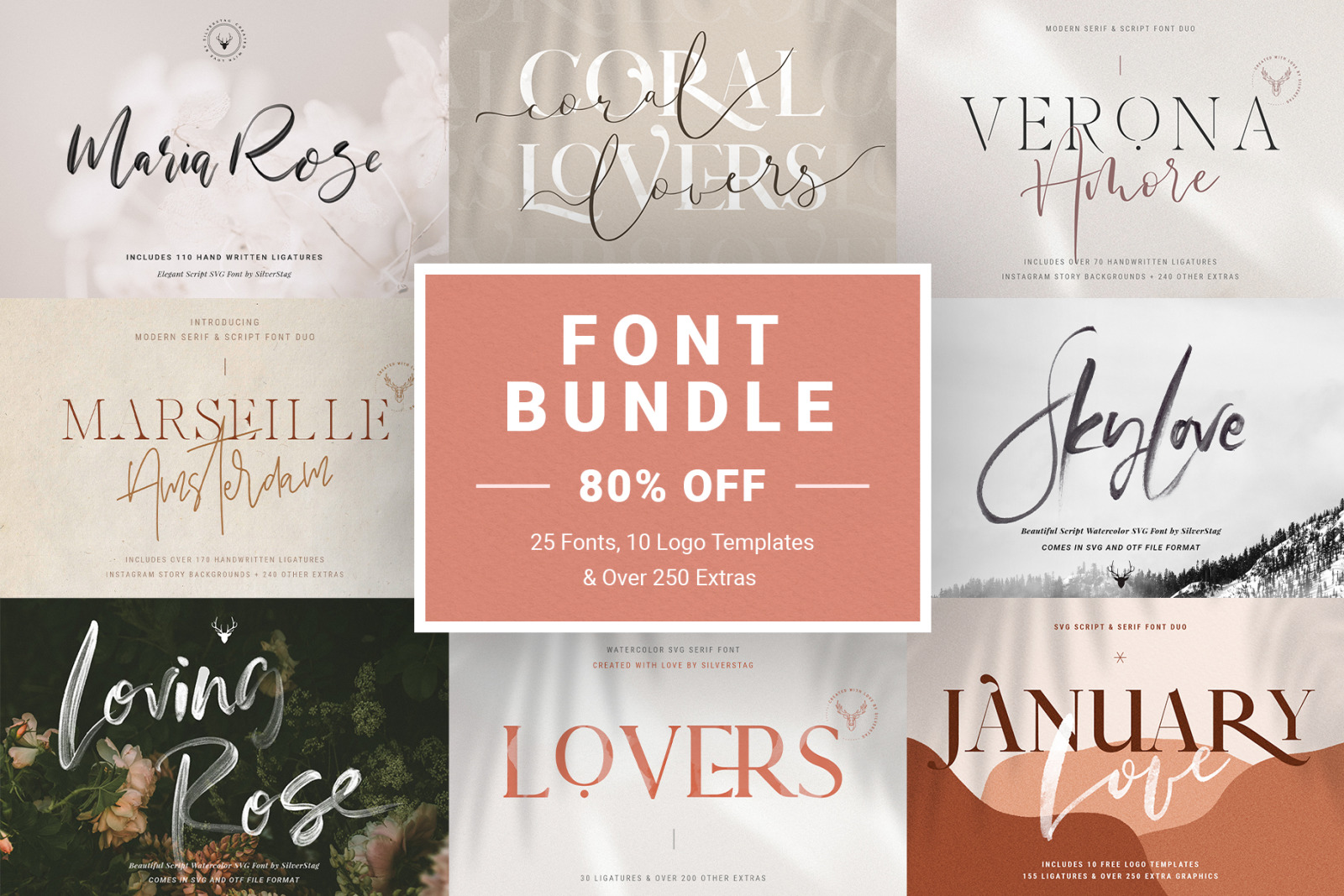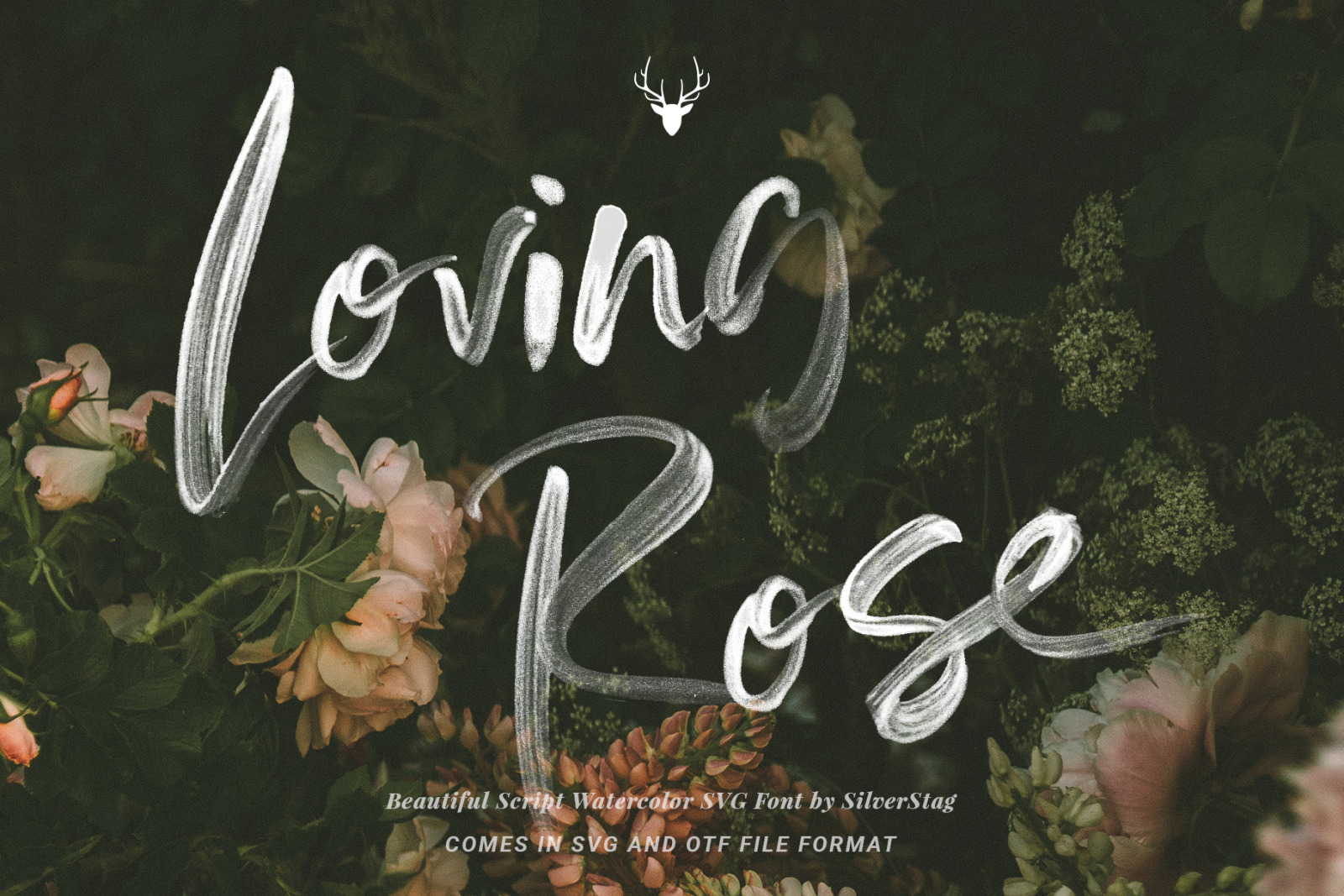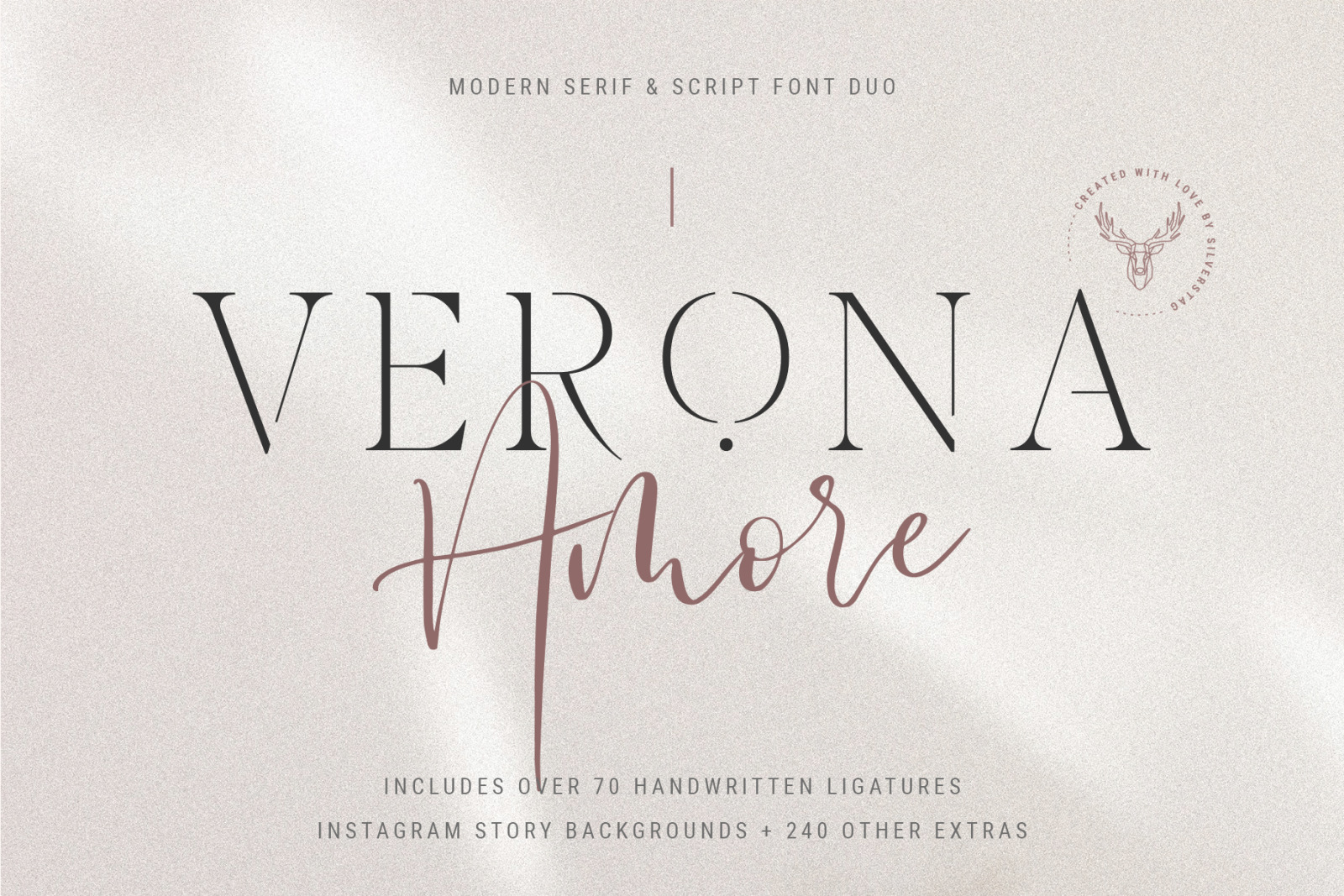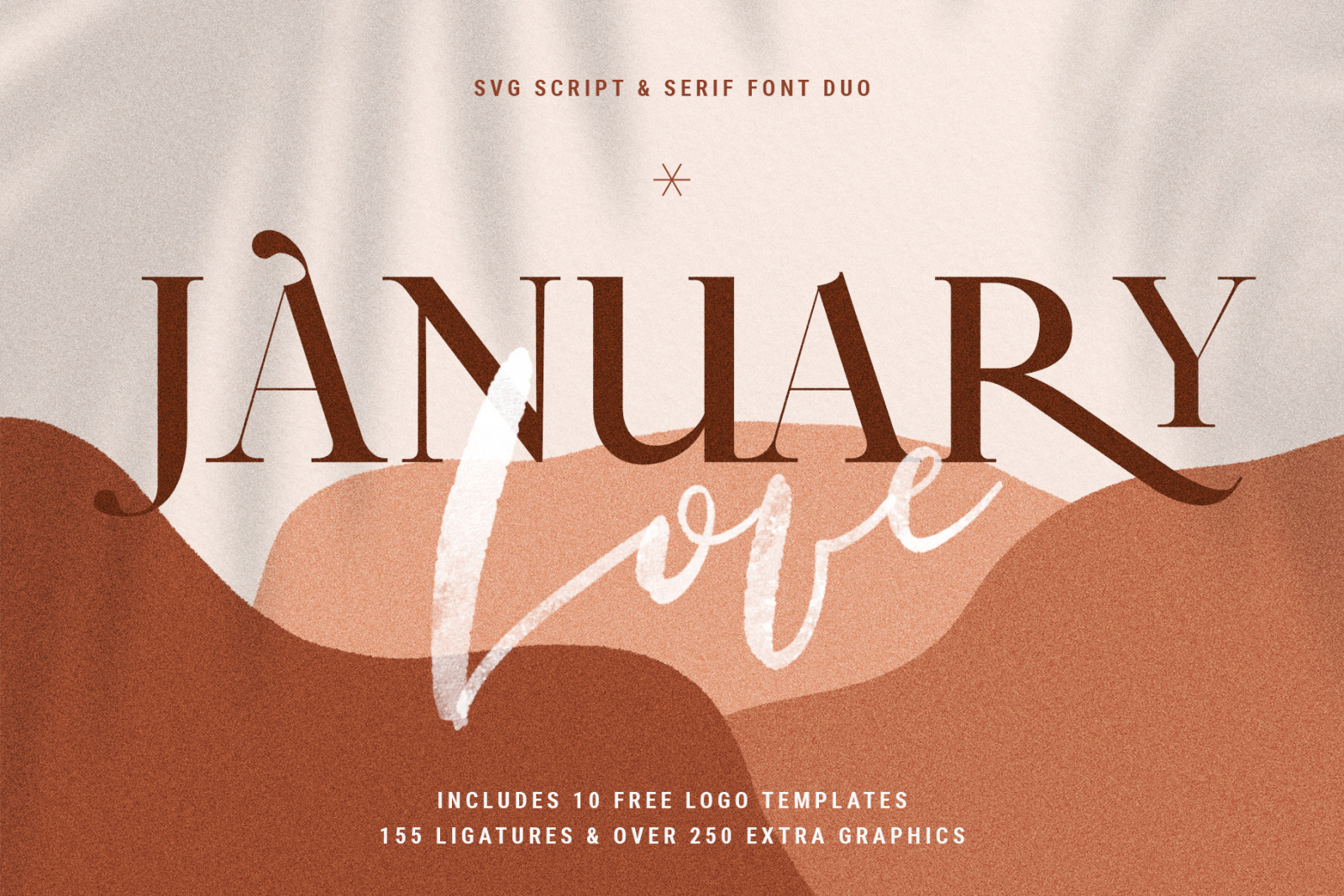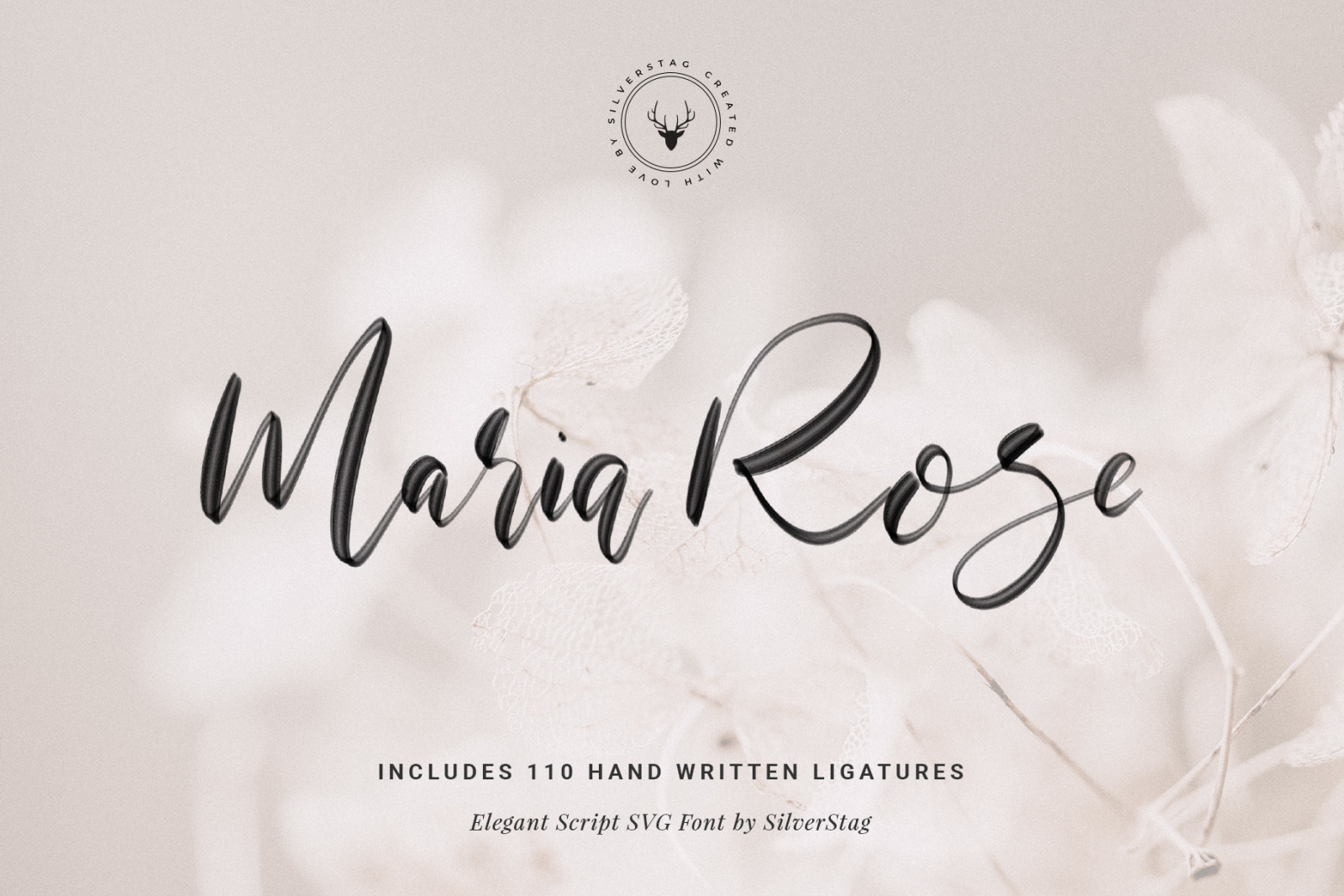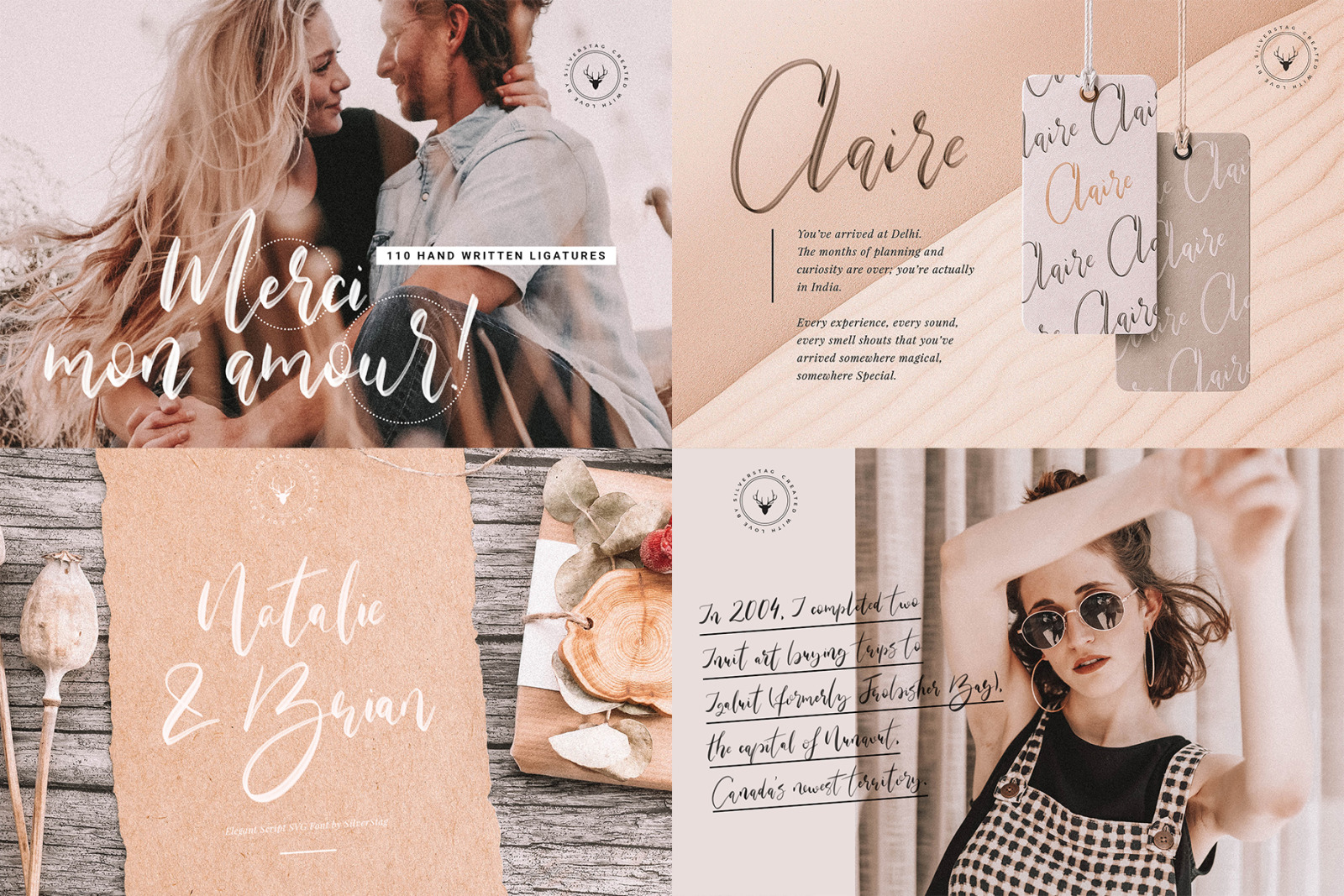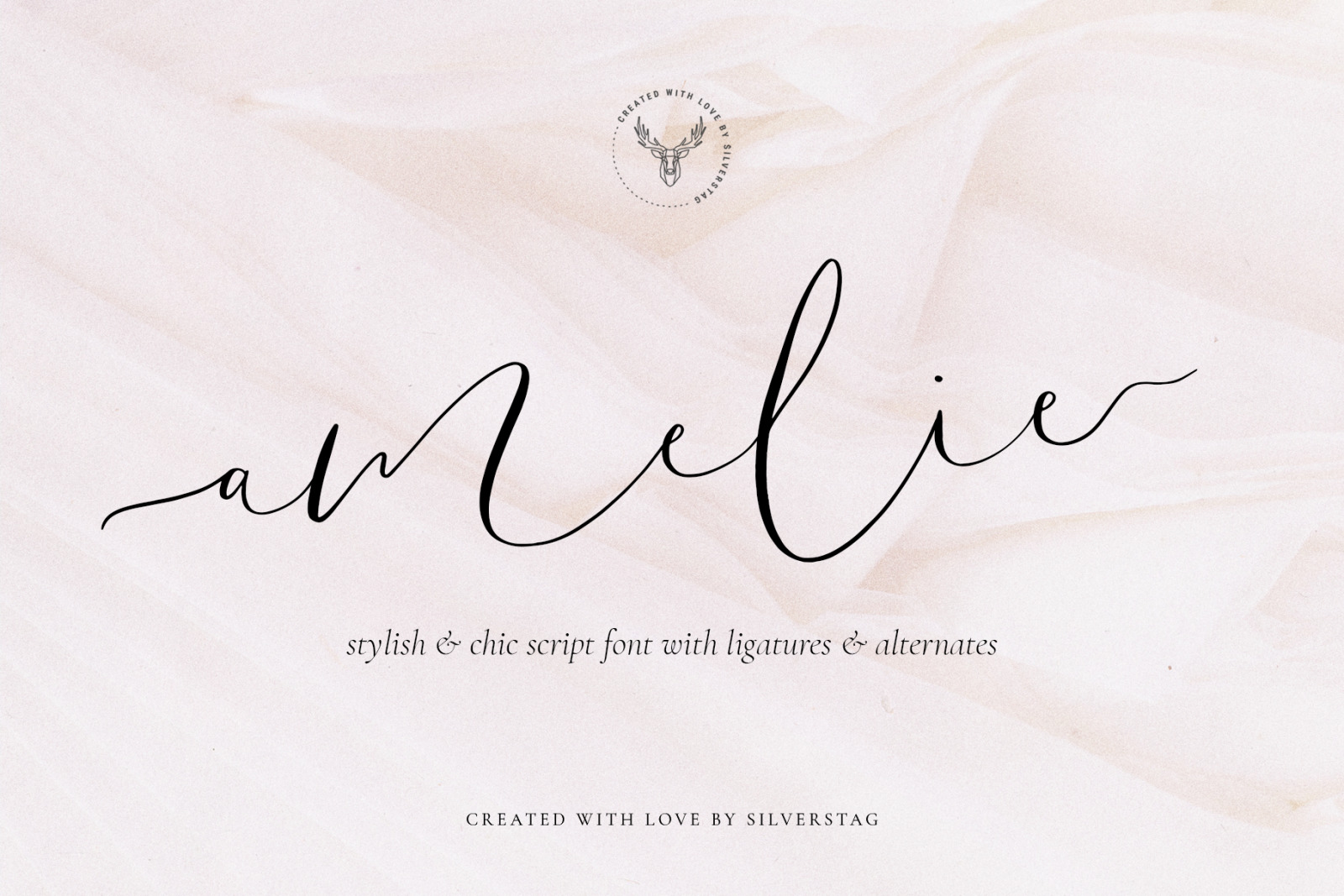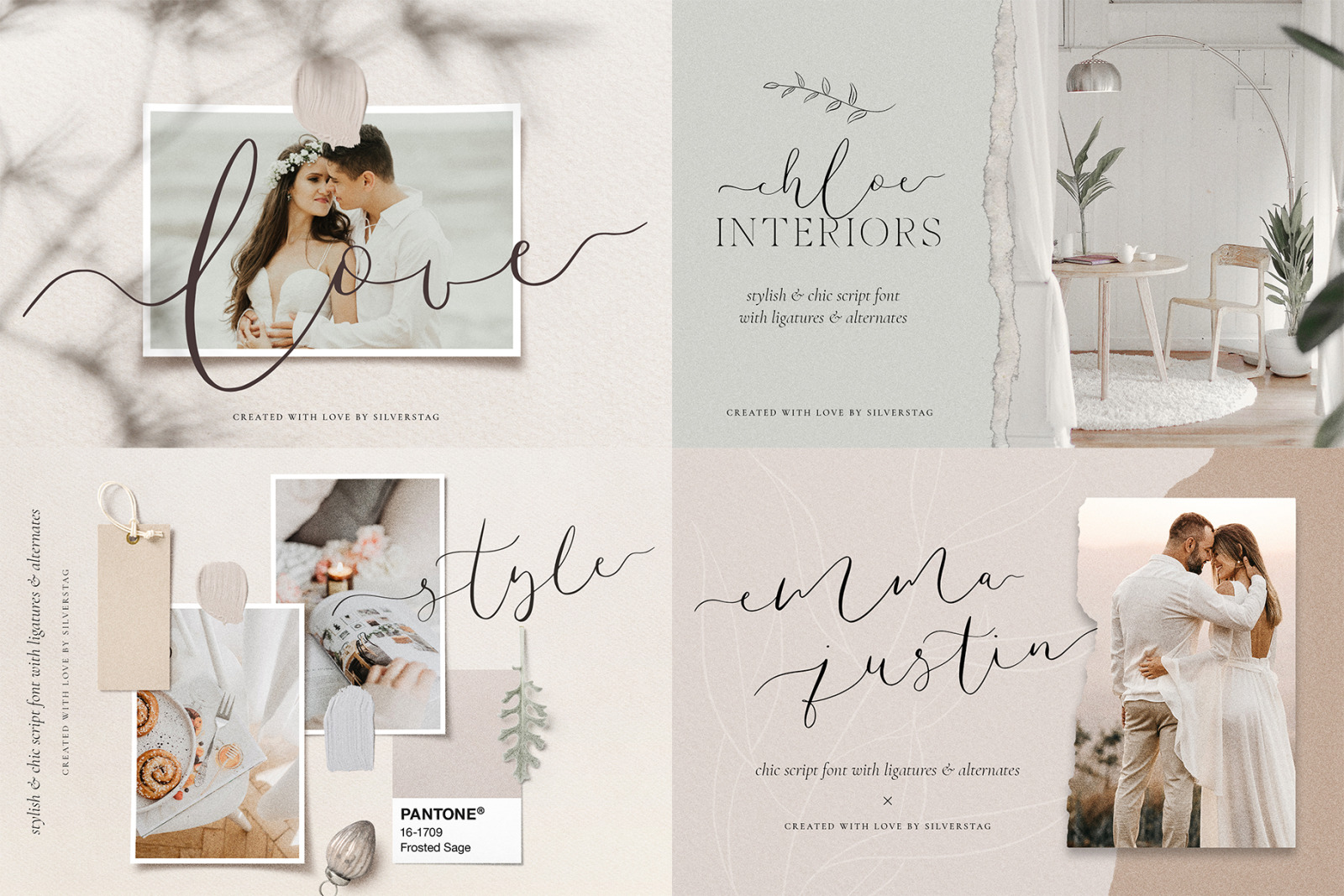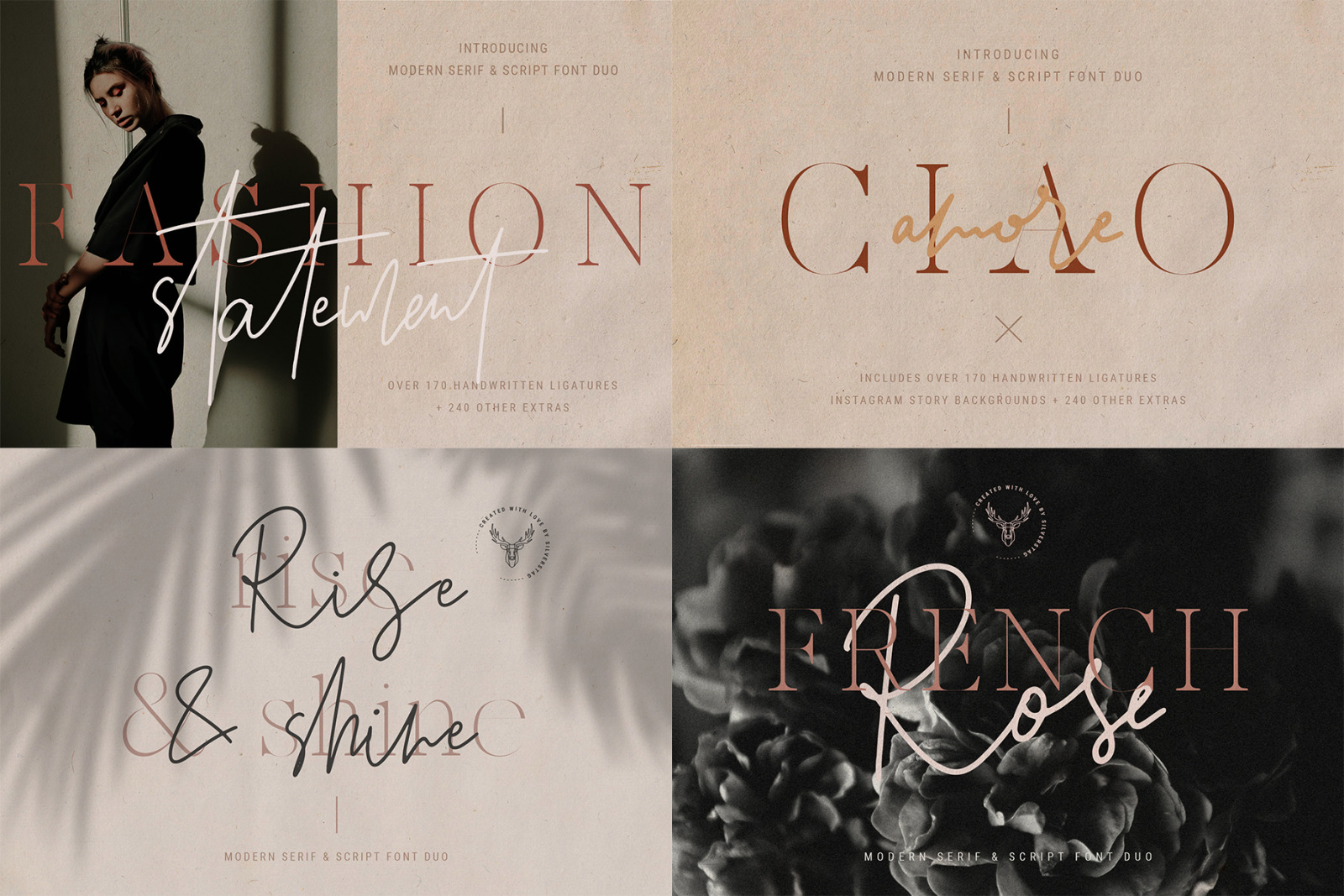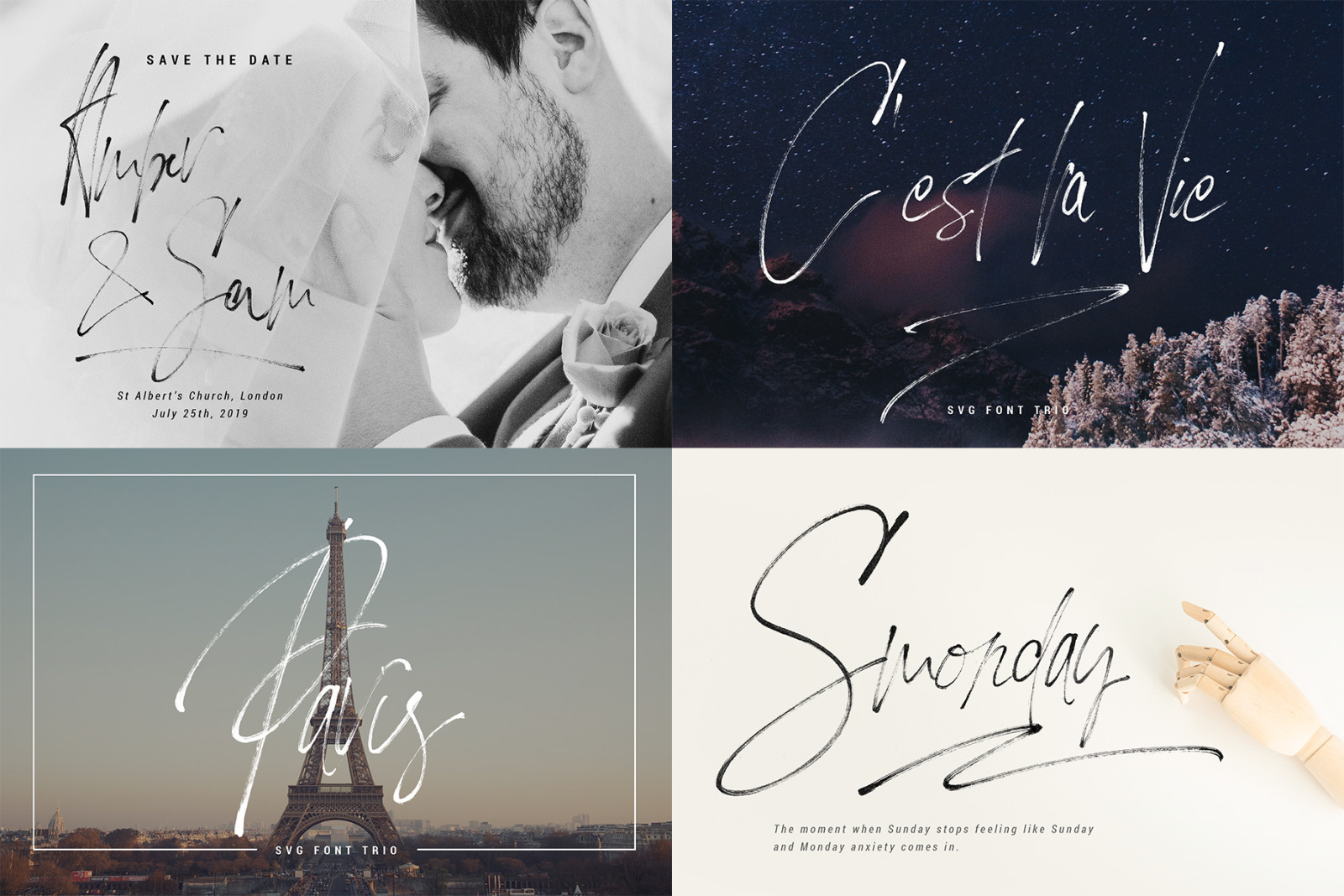
THIS BUNDLE INCLUDES:
Coral Lovers SVG Watercolor Font Duo
Amelie - Chic & Elegant Script Font
Verona Amore Font Duo & Extras
Lovers SVG Serif Font & Extras
January Love SVG Font Duo & Logos
Marseille & Amsterdam Font Duo
Maria Rose Elegant Script SVG Font
Loving Rose SVG Watercolor Font
SkyLove SVG Watercolor Font
LovingCeline SVG Script Brush Font
BUNDLE FEATURES:
All these fonts come with a huge pack of over 500 unique alternates, ligatures, and some spicy extras! You will get 10 FREE and creative logo templates optimized for Adobe Illustrator and Adobe Photoshop. You will also get 29 FREE and ready to use Instagram Story backgrounds, that come in ready to use JPG format and I have also included Photoshop version for all of you who would like to optimize them for your brand.